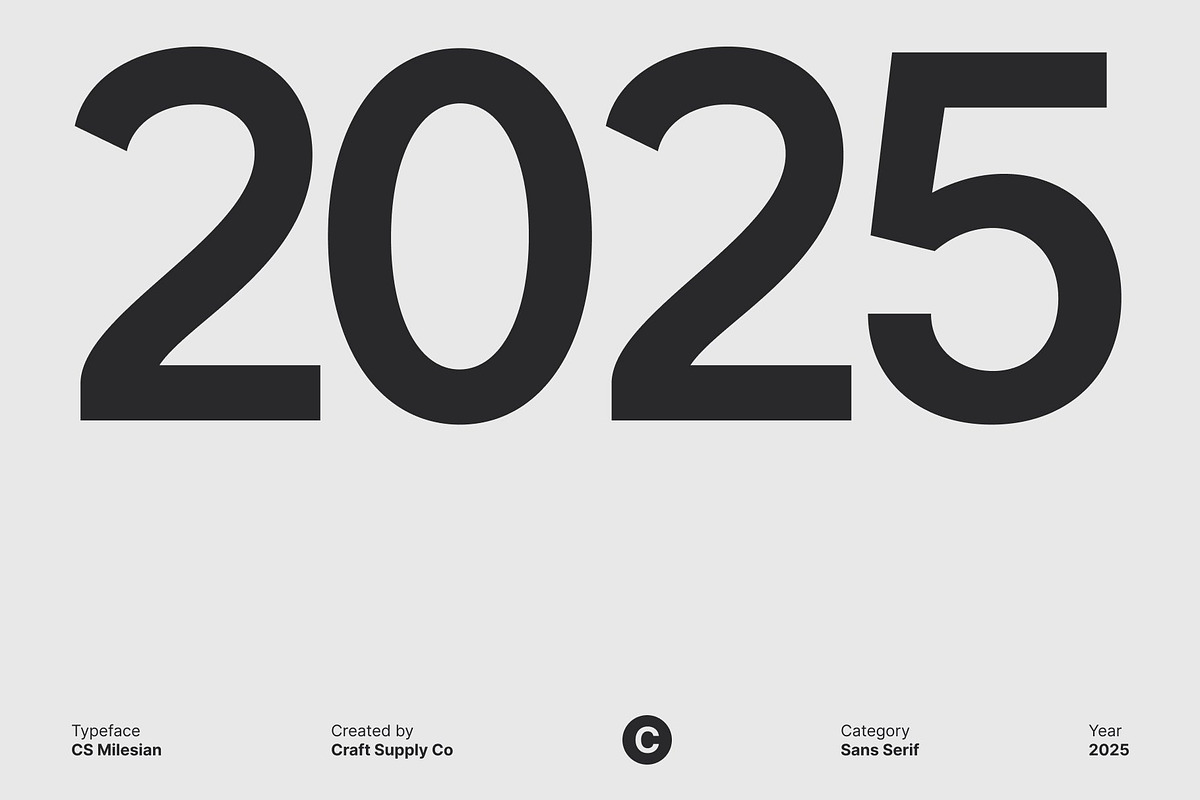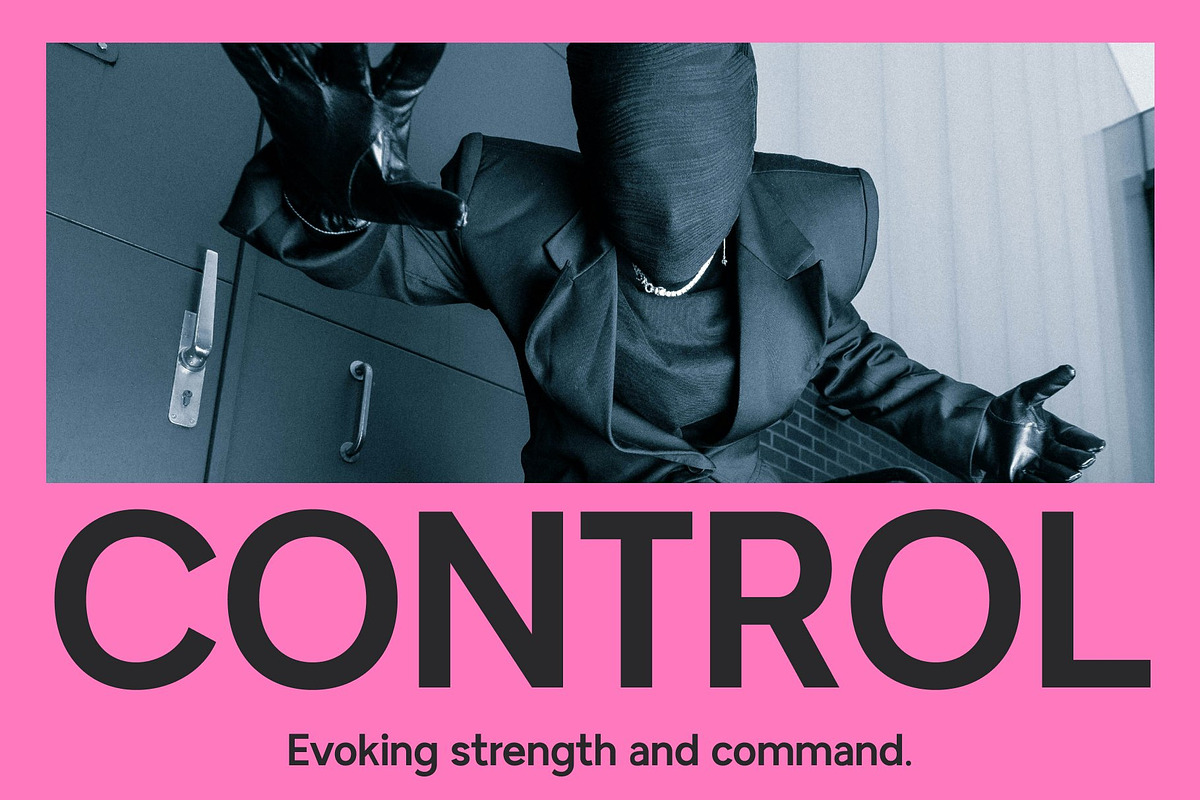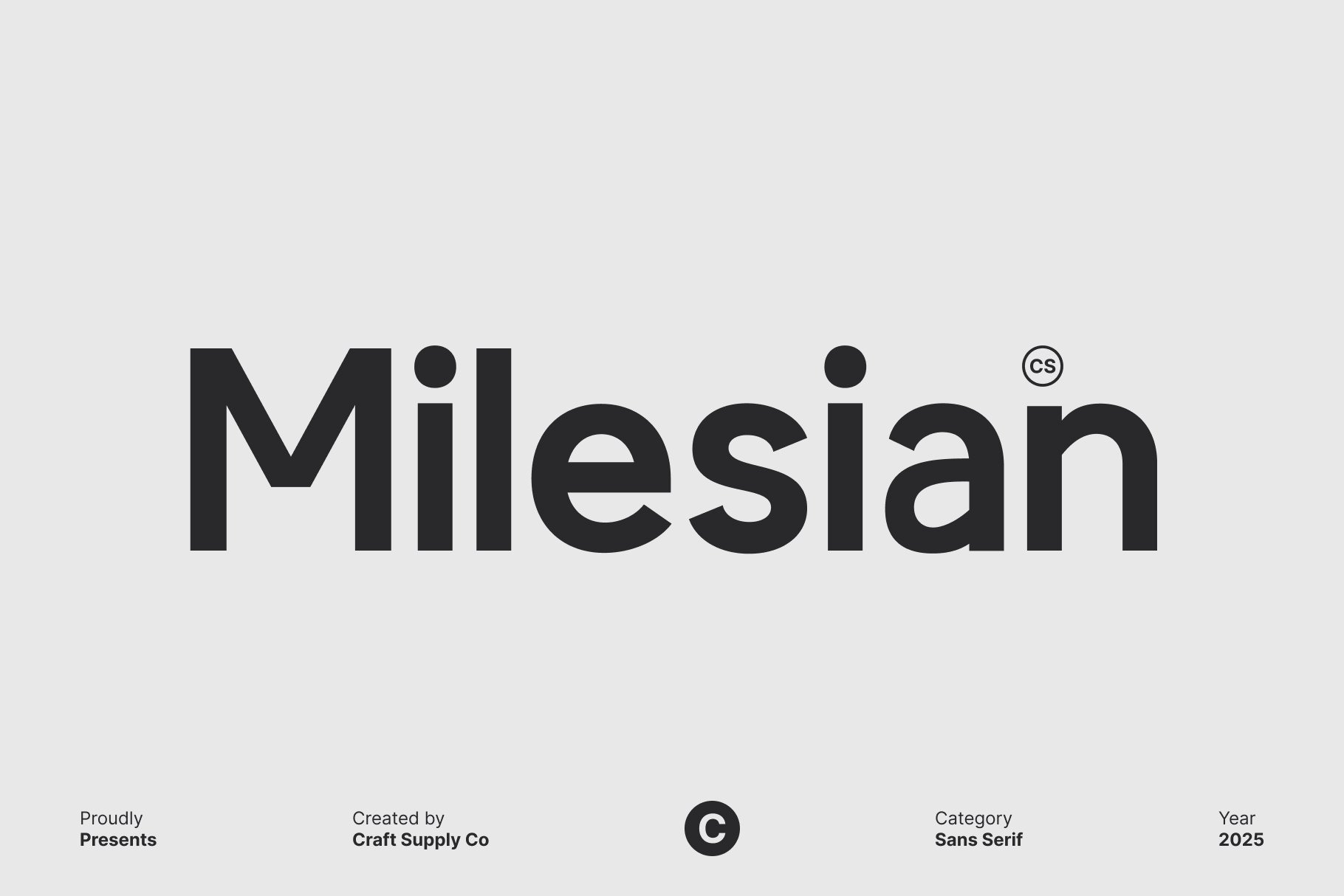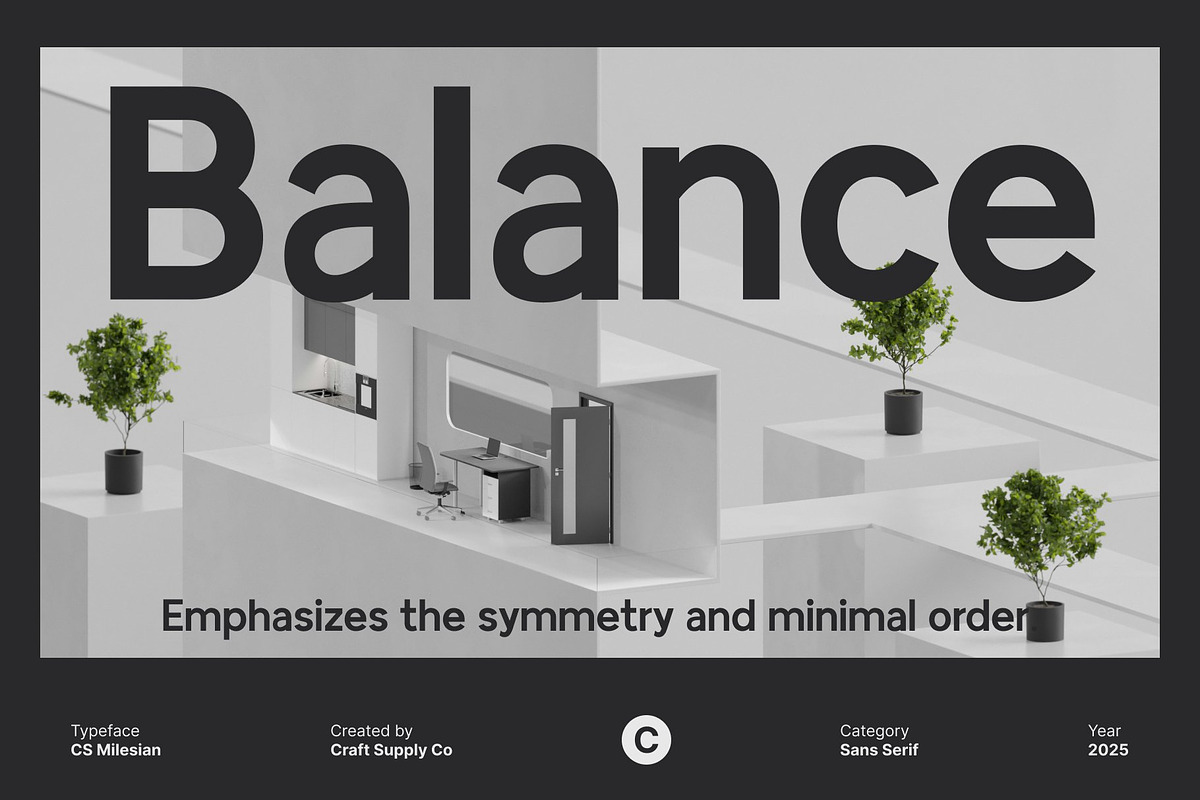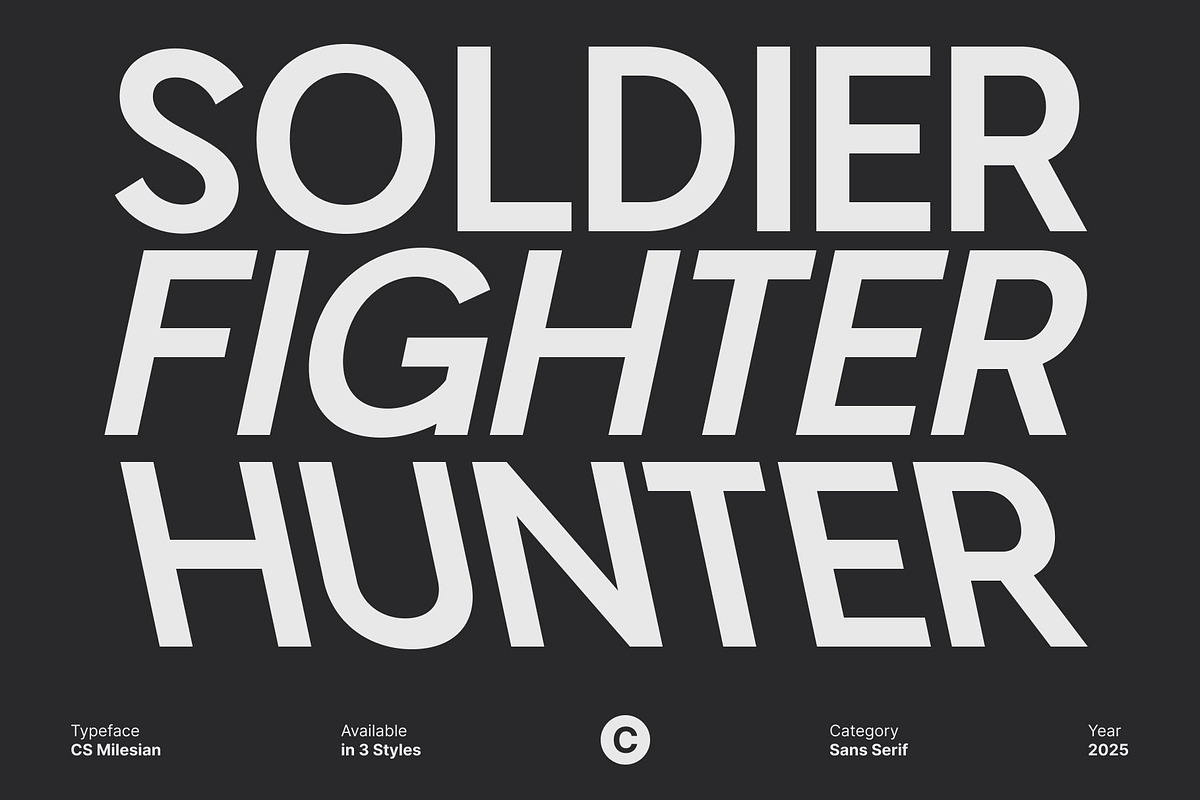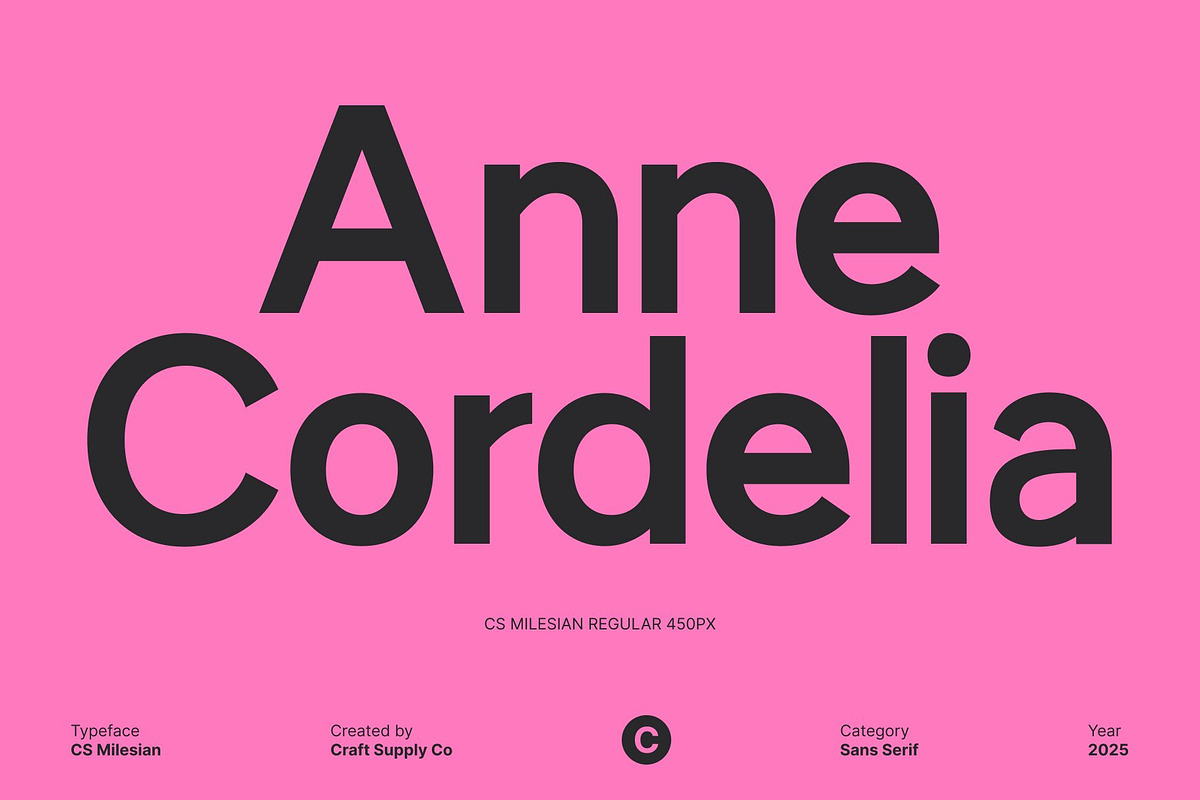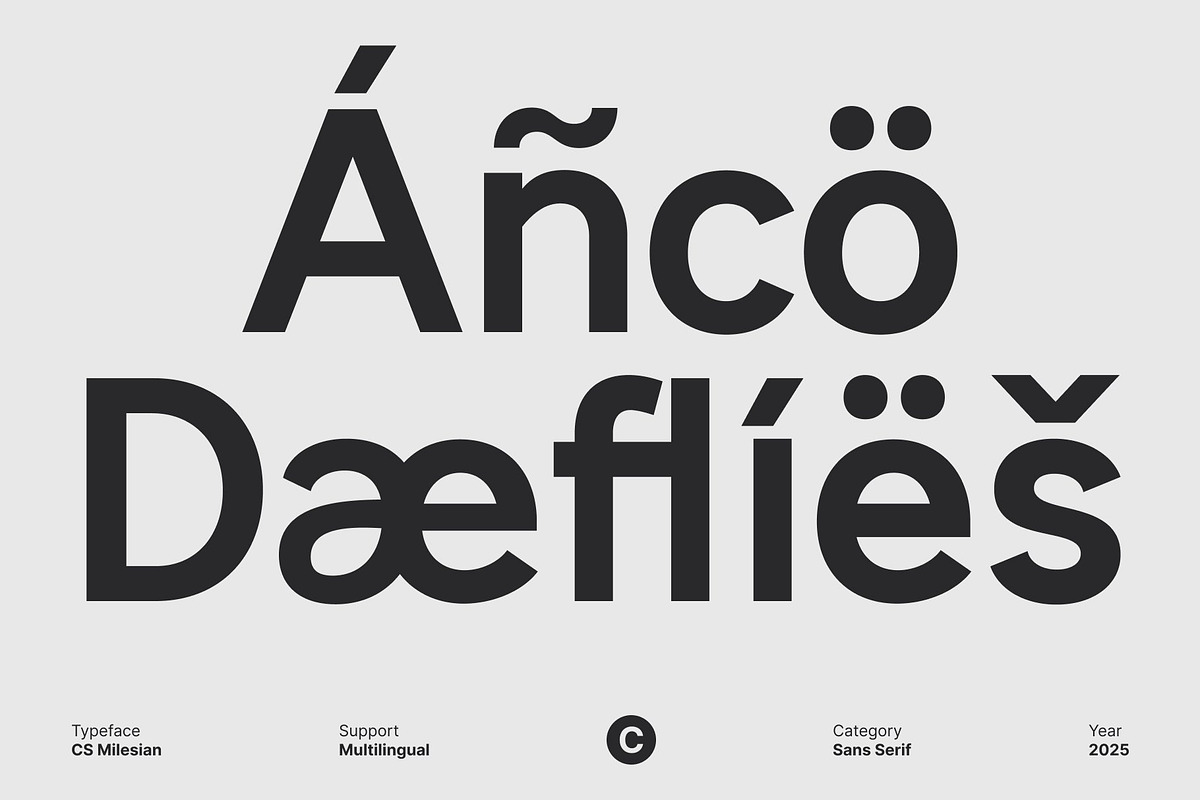
CS Milesian – Sans Serif Typeface
CS Milesian – Simple, Clean, and Modern Sans Serif
A Simple and Purposeful Sans Serif Design This is a modern sans serif font inspired by the beauty of simplicity. Built with clean strokes and balanced proportions, it embraces minimalism while maintaining strong visual clarity. Every letter feels intentional making the font highly functional and easy to use across a wide range of design styles.
Clean Shapes with Subtle Contrast Designed with subtle contrast to enhance readability and character, this font offers a refined appearance that feels both contemporary and versatile. Its clean structure ensures excellent legibility, while the gentle contrast adds visual interest without overwhelming the design. This combination makes it perfect for projects that require a polished yet understated look.
Perfect for Posters, Logos, and Album Art From bold posters to sleek logos and modern album covers, this font adapts seamlessly to various creative needs. Its minimal aesthetic works exceptionally well in expressive layouts, editorial compositions, branding systems, and digital designs. Whether you’re aiming for a professional tone or a modern artistic vibe, this font enhances every visual message.
Versatile for Modern and Creative Applications This font’s simplicity is its strength offering designers a dependable, flexible typeface that fits countless design contexts. Its modern charm makes it suitable for brand identities, promotional materials, web graphics, social media visuals, and more.